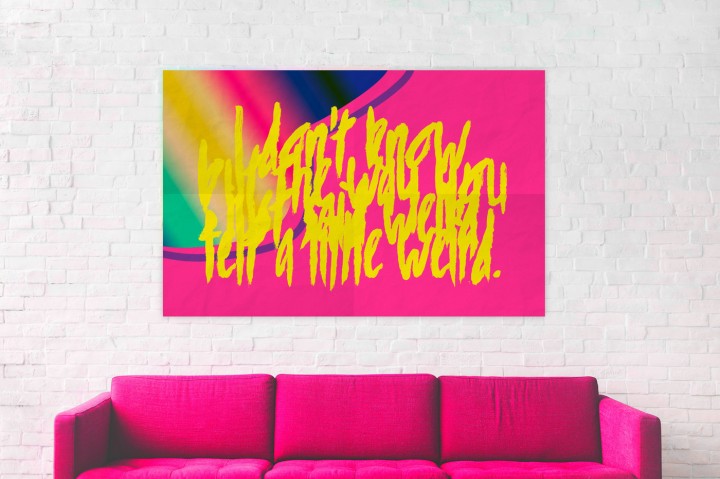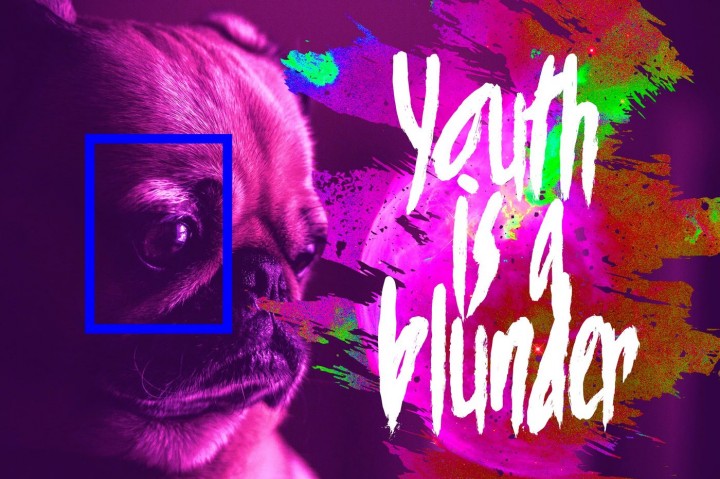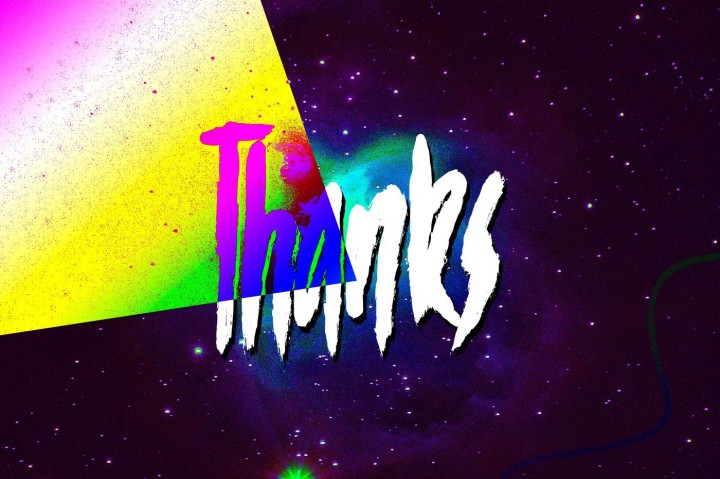
Speedy Space Font
Speedy Space Goat Oddity is the font with really interesting mood.
My purpose was to transfer freedom, immediacy, and a bit of insanity with it. I’ve painted it with self made paint and brush in trippy environment.
You can use Speedy Space Goat Odiity almost everywhere. It’s great for posters, clothes design, package design, music album covers. Also, with right approach you can use it as horror font.